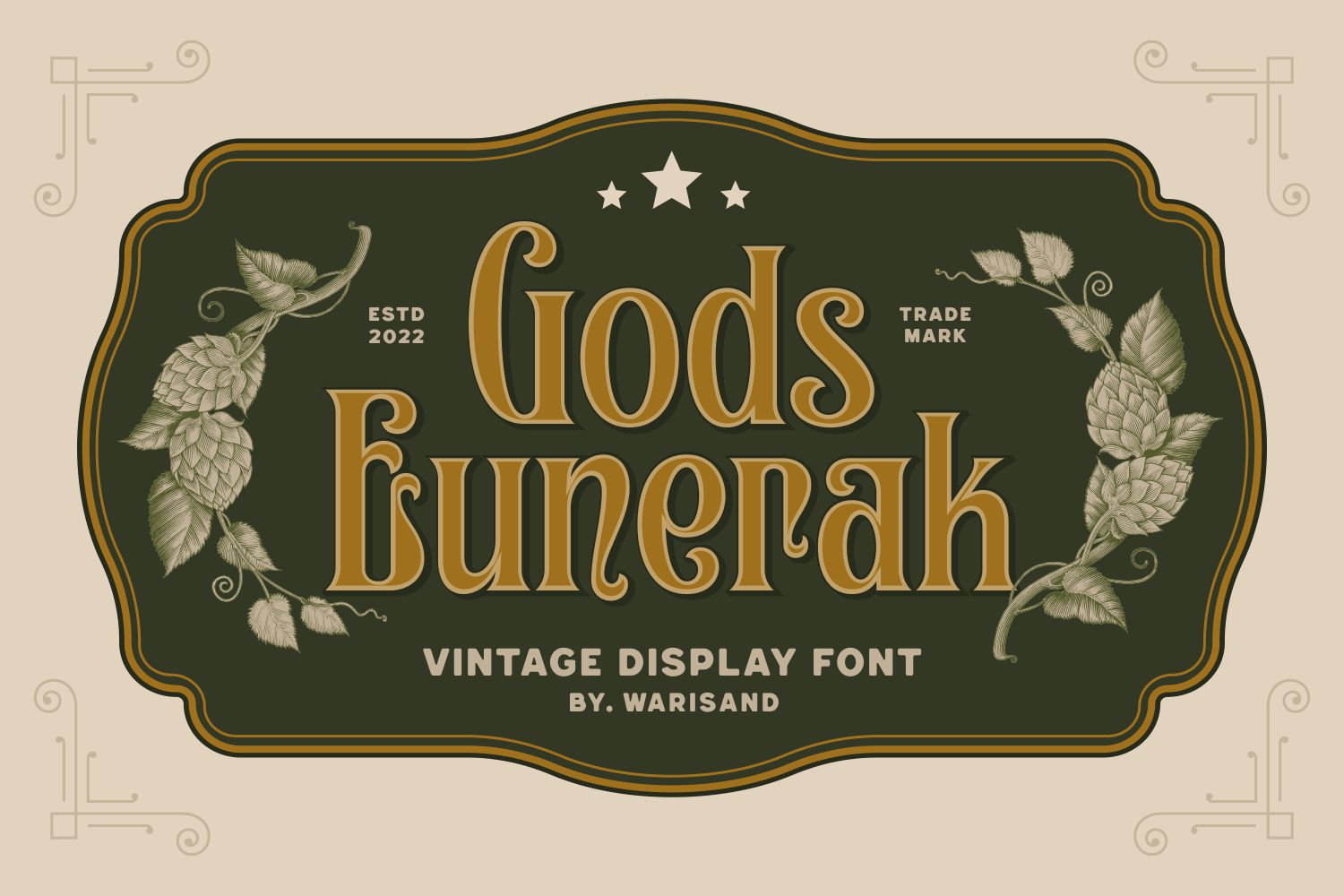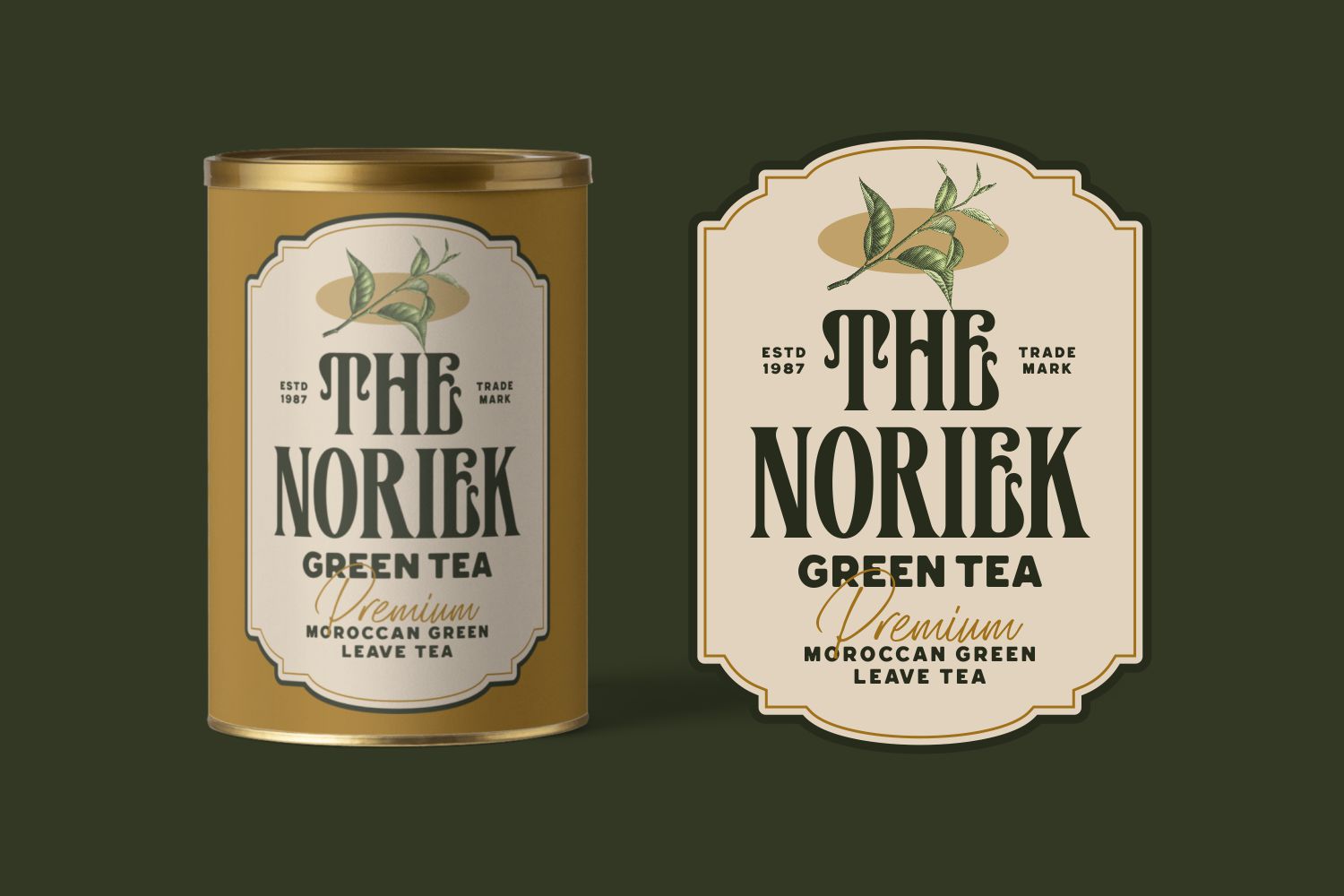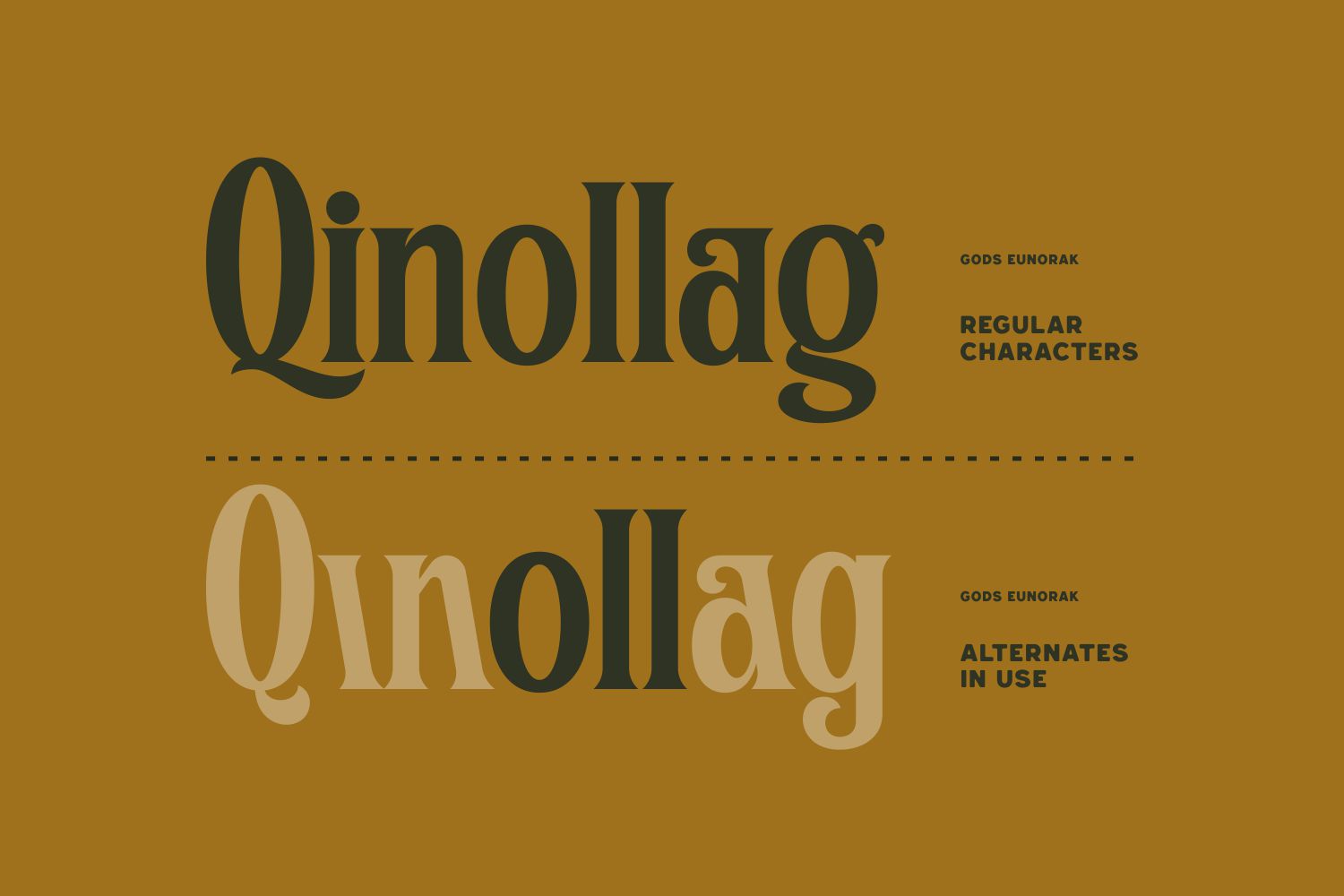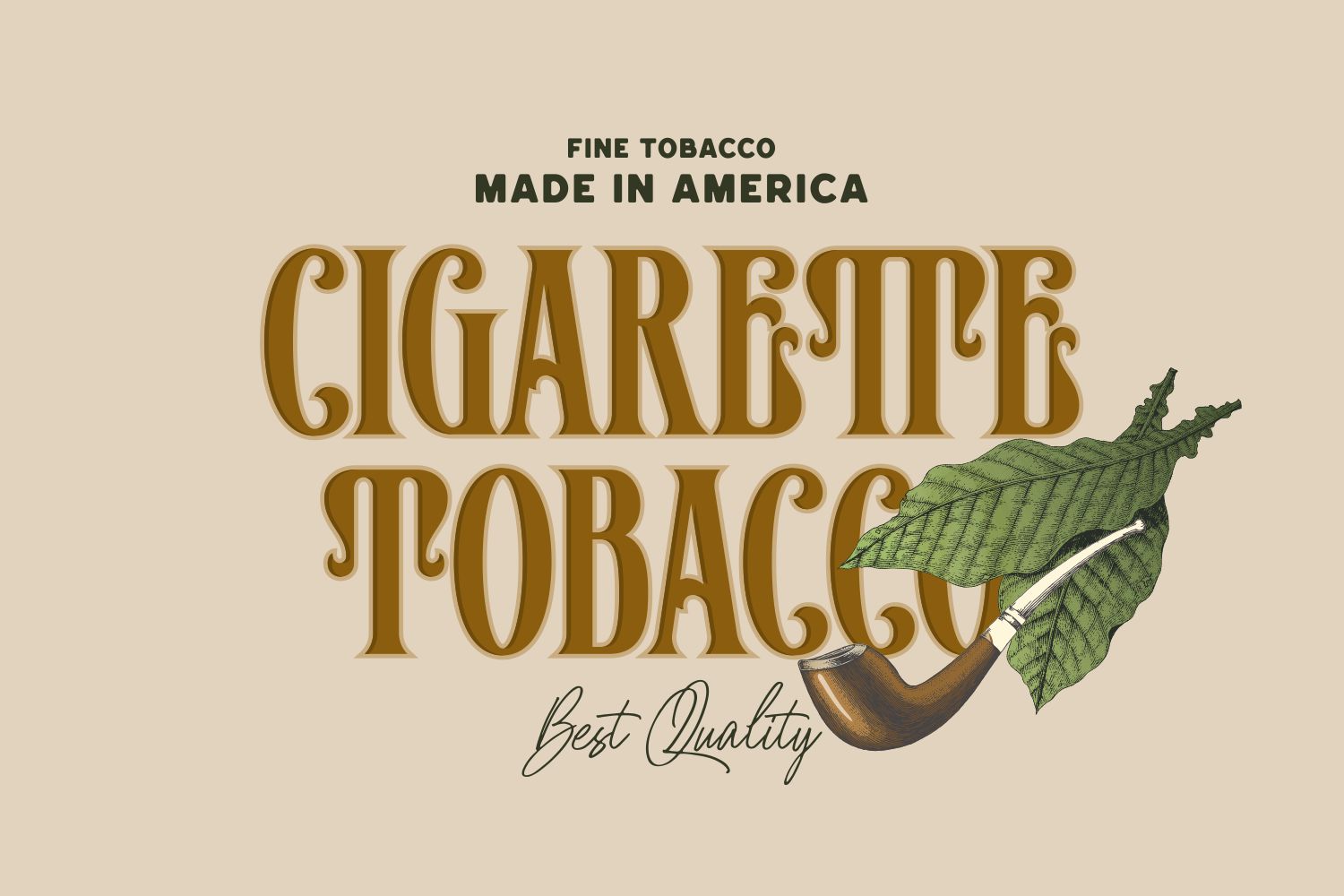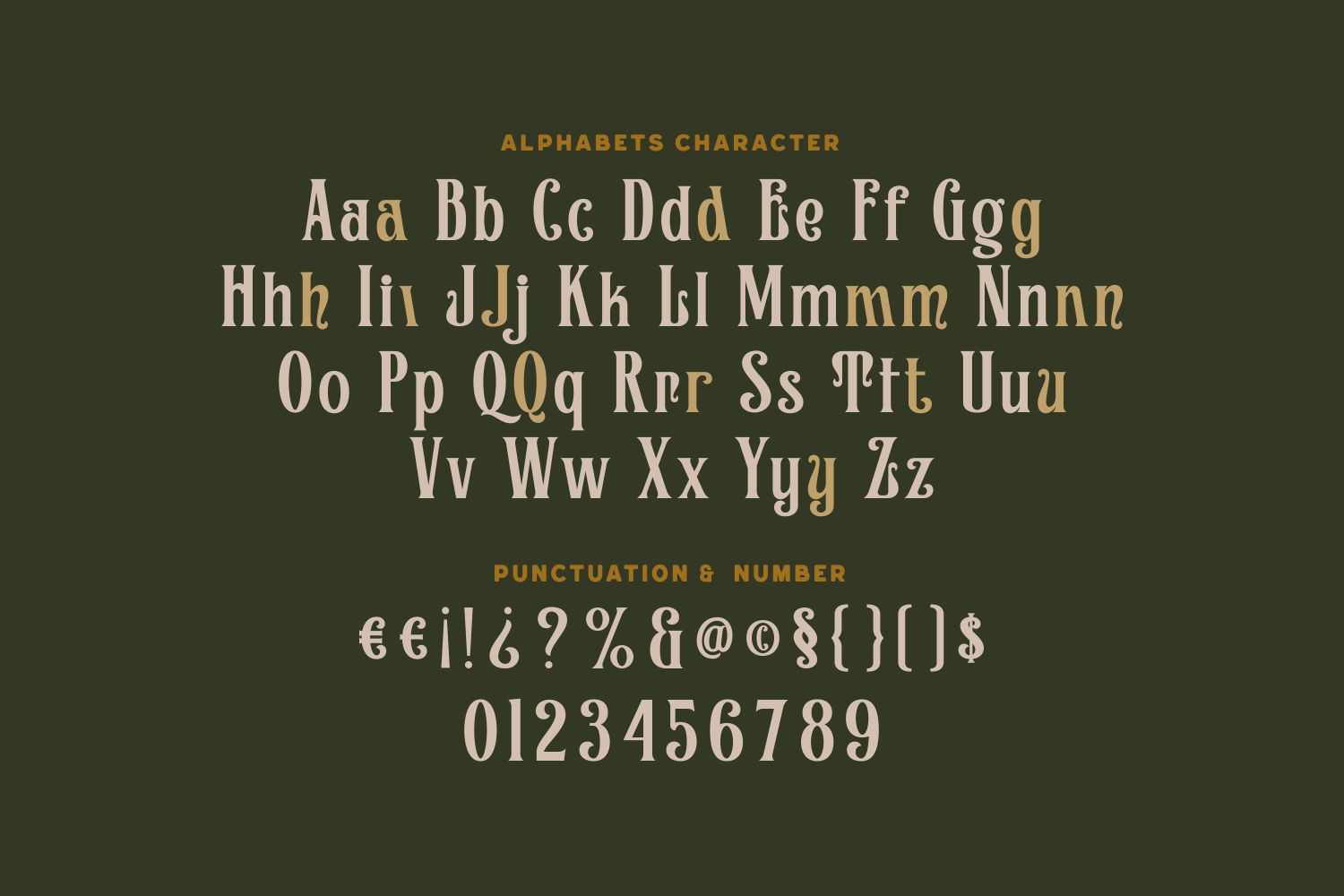
Gods Eunerak is a vintage-inspired display font that blends classical elegance with a touch of mystique. Featuring unique swashes, soft curvatures, and distinct character alternates, it delivers a strong personality perfect for premium packaging, tobacco labels, tea branding, or anything that requires a historical and luxurious feel. The font’s charm lies in its detailed strokes and retro sensibility, making it stand out in any traditional or artisanal design.
Complete with uppercase and lowercase letters, multilingual support, punctuation, and numerals, Gods Eunerak offers versatile usability across a variety of print and digital media. Its combination of bold presence and decorative flair makes it ideal for logos, beverage branding, editorial titles, and more. With alternate characters and elegant flair, this font brings sophistication and timeless style to your work.
Gods Eunorak